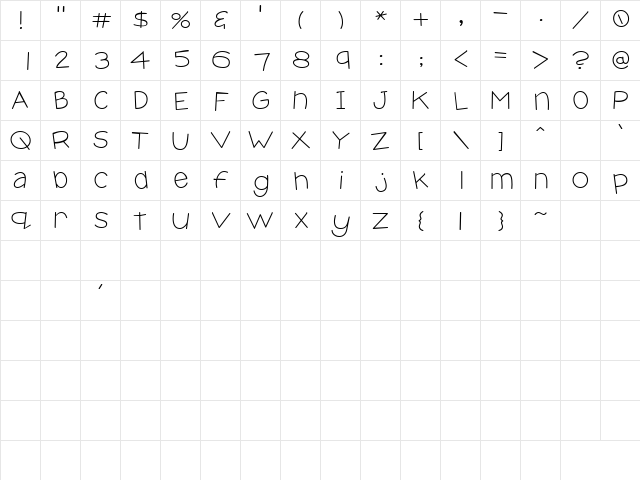
Scrap Round Regular
Design Context for Scrap Round Typeface
Scrap Round softens its letterforms with rounded terminals, giving it an approachable, friendly quality that works well in consumer-facing and digital contexts.
A natural fit for tech startups, health and wellness brands, children's products, and friendly consumer apps.
Font Pairing: Pairs well with a rounded or humanist sans for body copy, maintaining the friendly tone without relying on Scrap Round to carry extended reading.
Pro Tip: Pair Scrap Round with a geometric sans for a balanced system — the rounded softness works as a warm counterpoint to harder-edged companions.